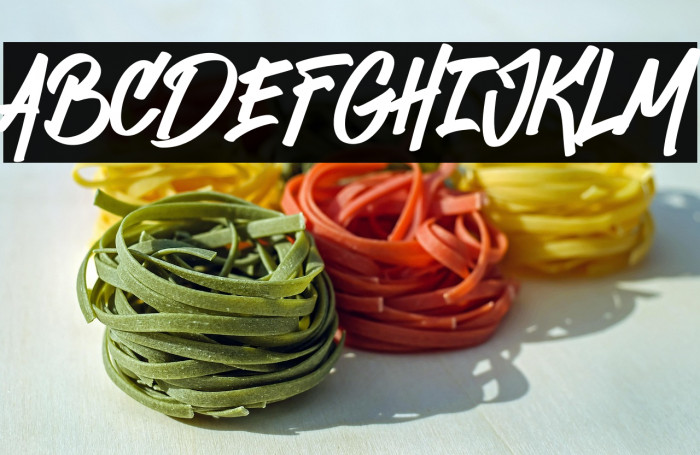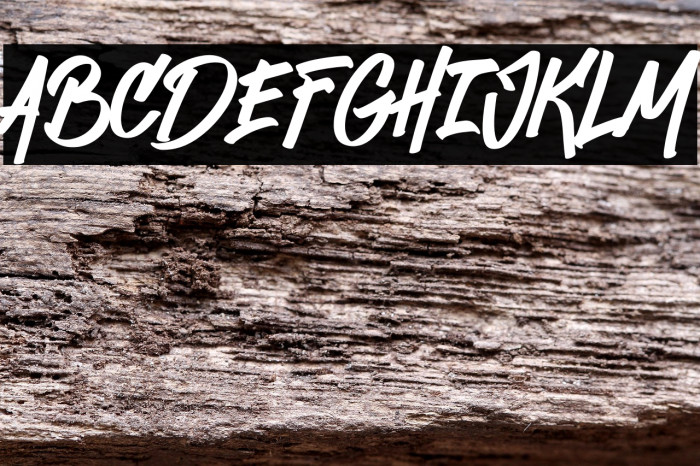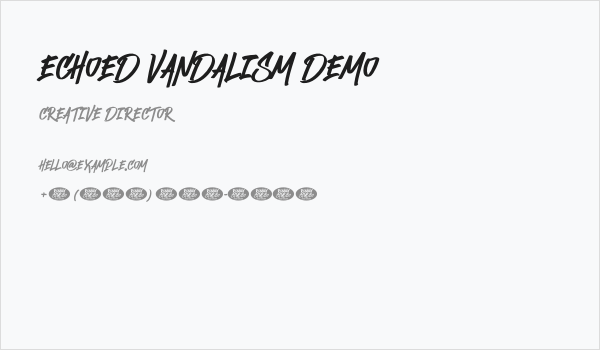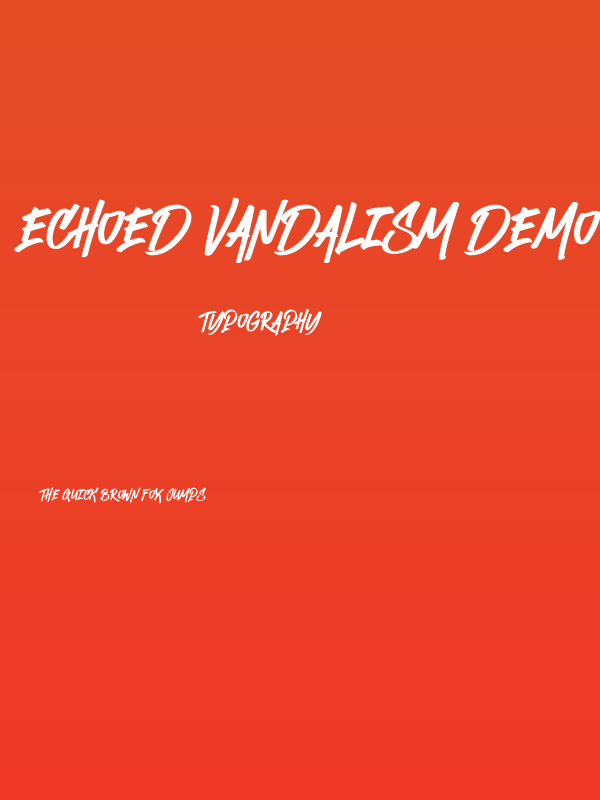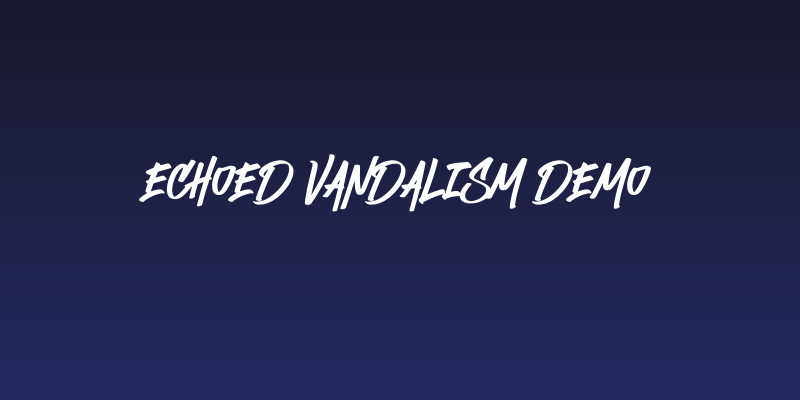
Echoed Vandalism DEMO Font
Echoed Vandalism DEMO Description
This font exhibits a bold, energetic style with a handwritten appearance, characterized by its dynamic and fluid strokes. The letters are slightly slanted, giving a sense of motion and spontaneity. The uppercase and lowercase letters maintain a consistent style, with thick lines and sharp edges that convey a sense of urgency and expressiveness. The numbers and special characters follow the same aesthetic, ensuring a cohesive look across all glyphs. This font is ideal for projects that require a personal touch or a sense of creativity and flair.
| Use Case | Logos, Posters, Branding |
| Proposed Projects | Perfect for street art-inspired designs, posters, branding, and any project needing a bold, expressive touch. |